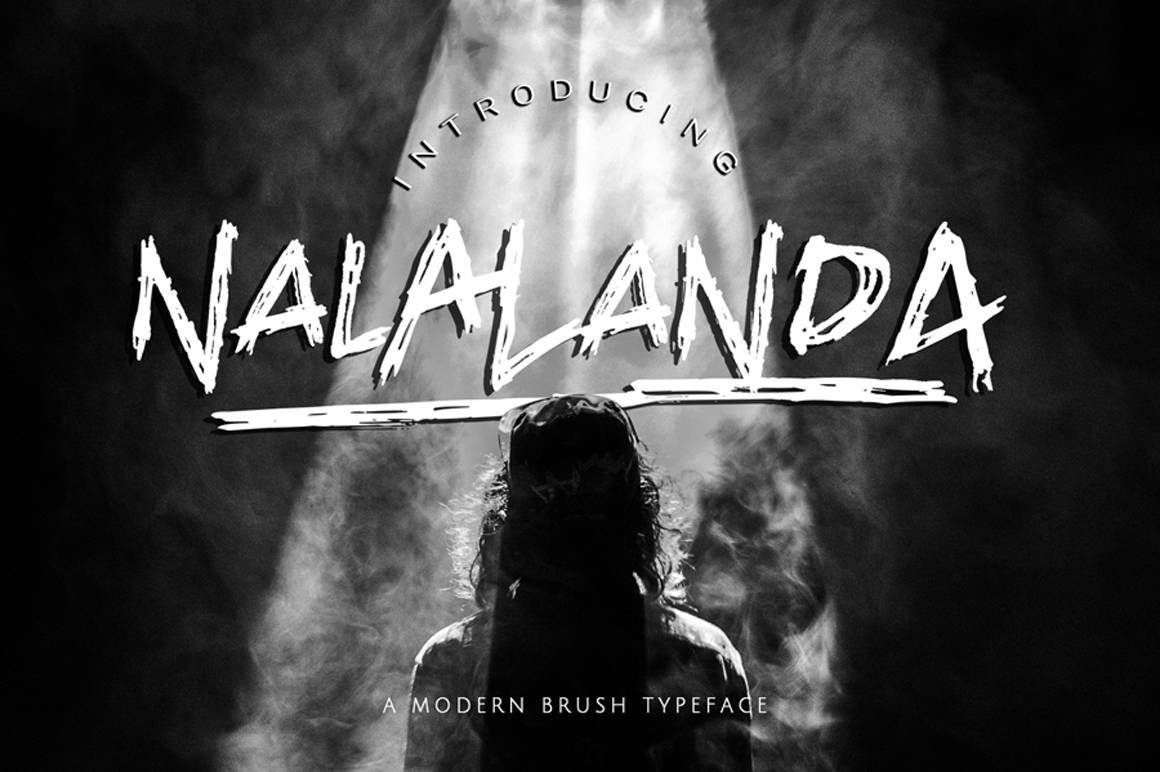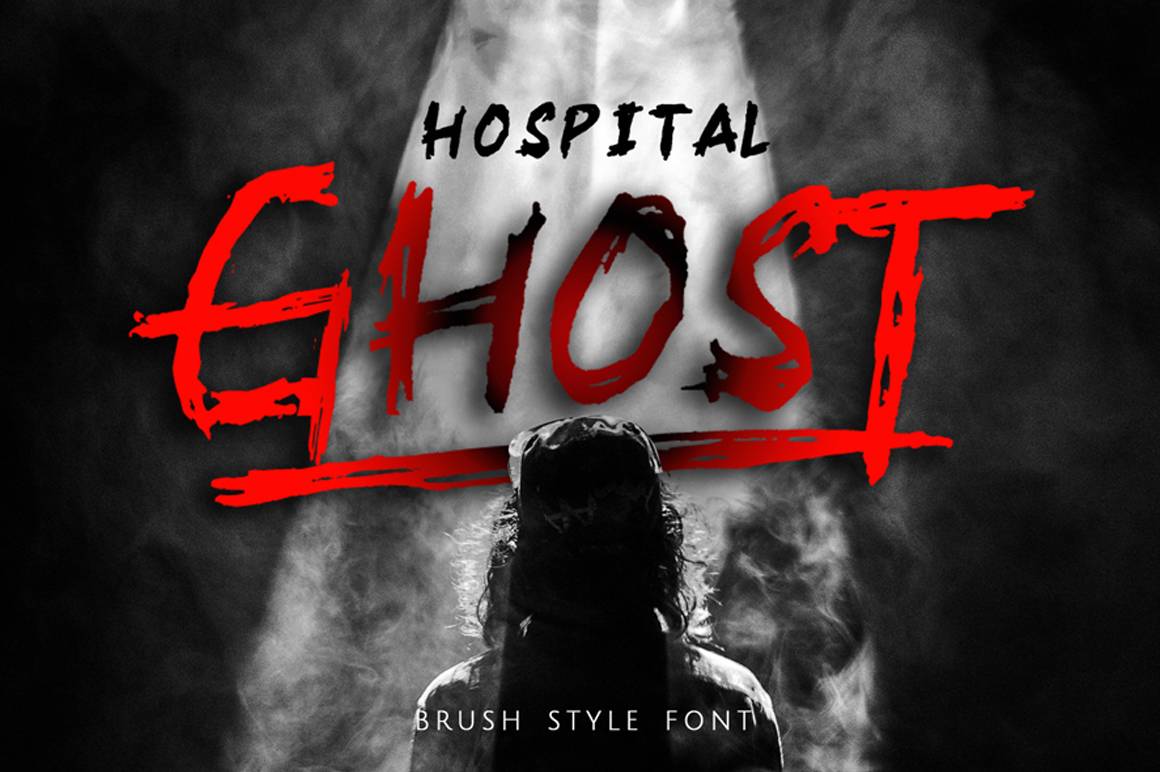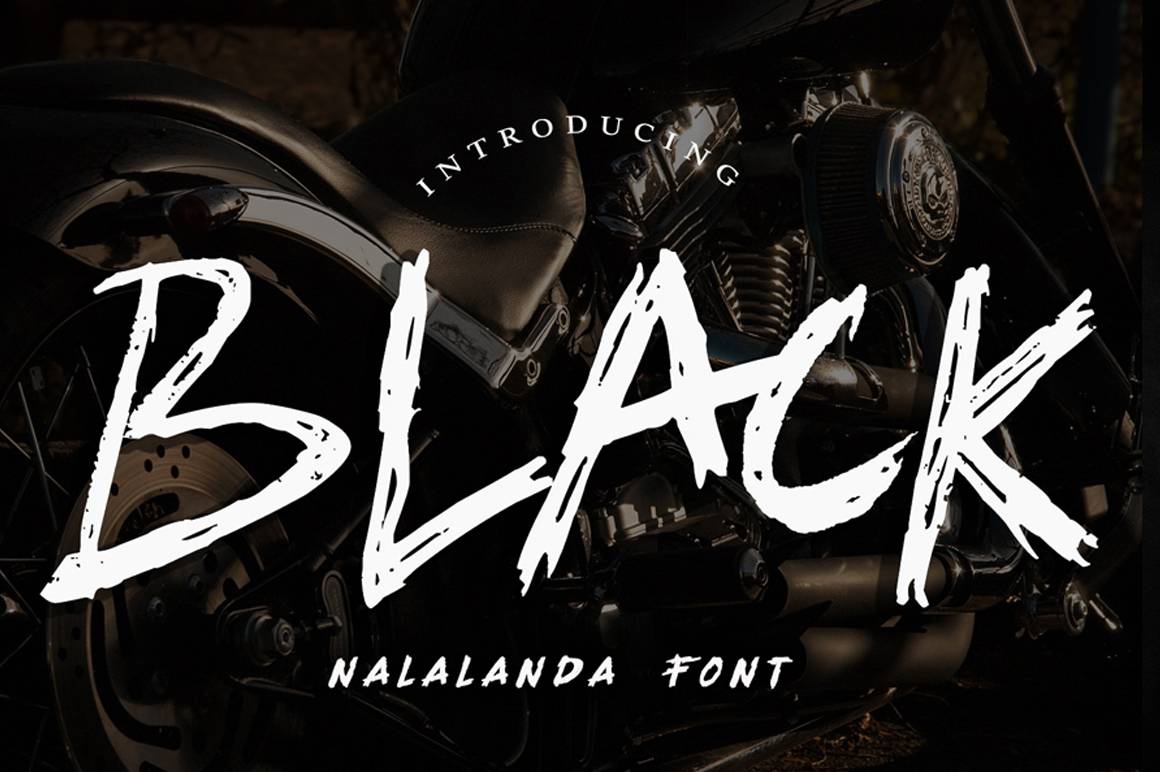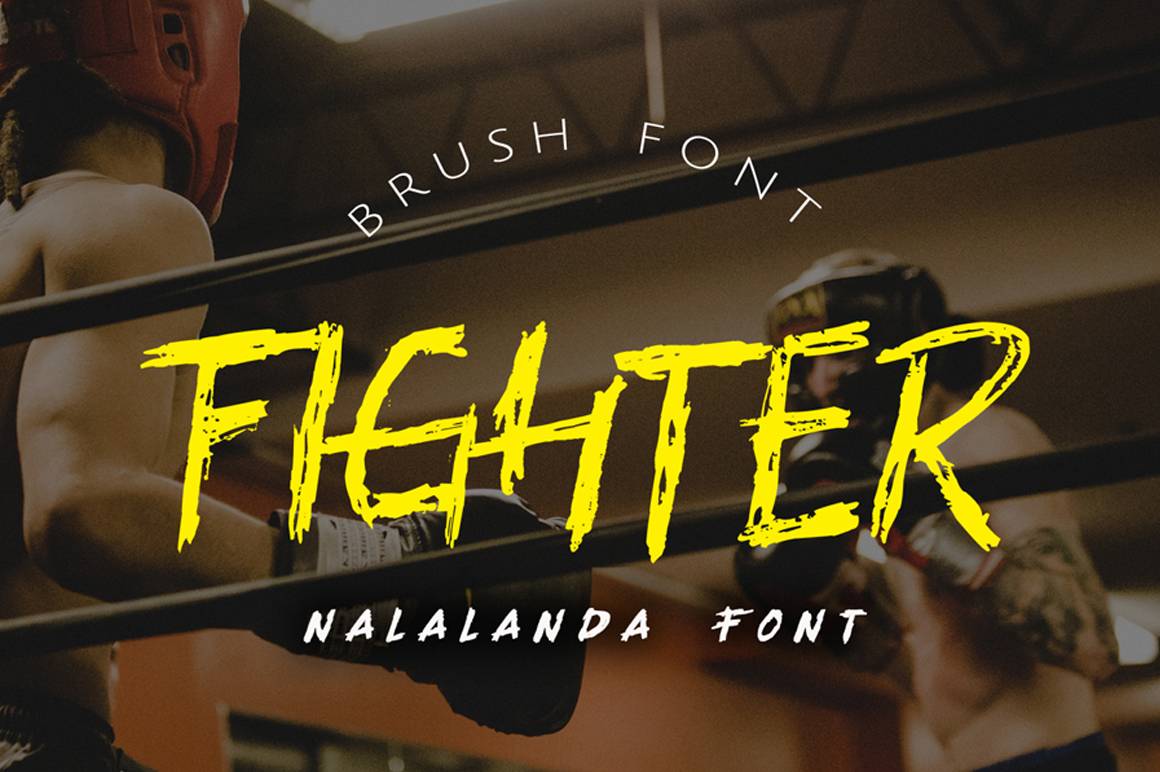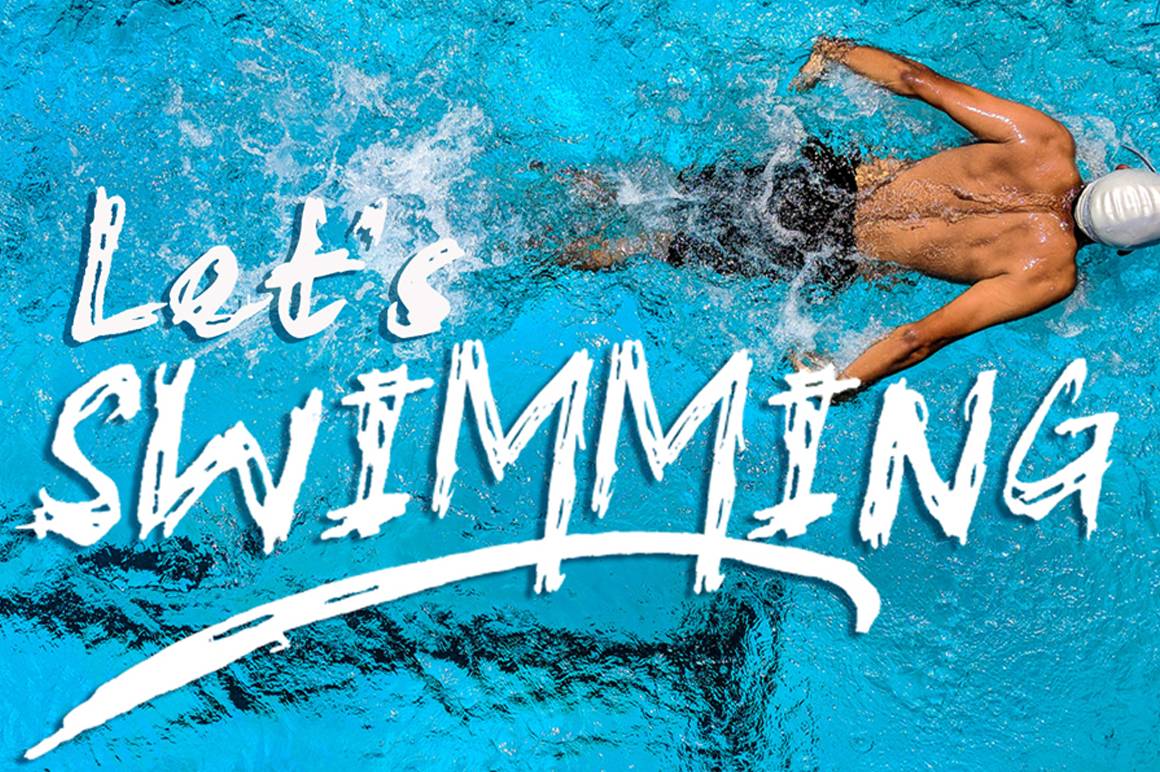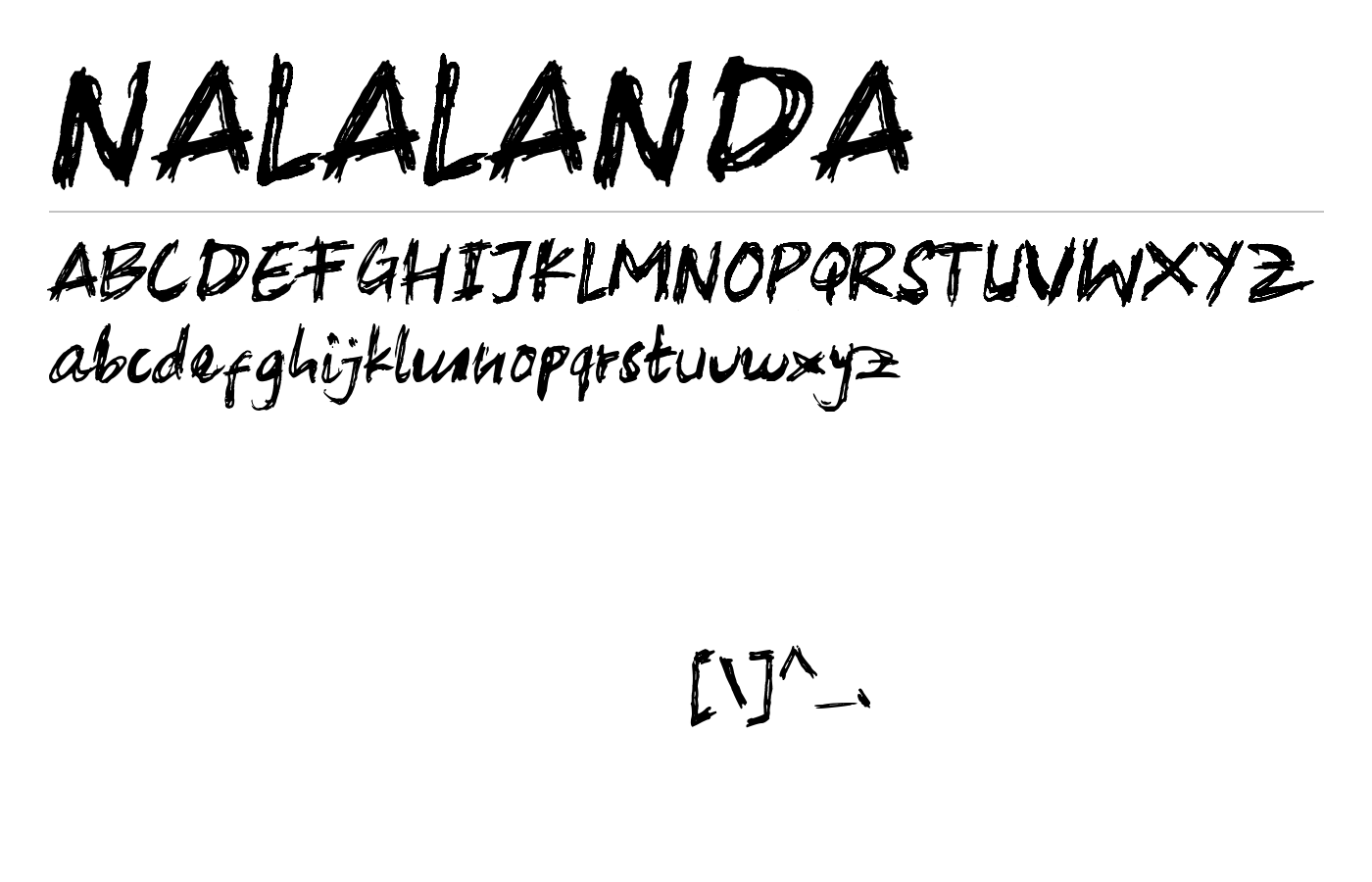
Nalalanda is a bold, expressive handwritten font with a rough, brushstroke texture that gives it an energetic and artistic feel. Its uneven, jagged edges combined with dynamic letterforms make it ideal for creative projects, casual branding, and edgy headlines that demand attention. This font works best when used to add personality and a sense of spontaneity to posters, logos, and social media graphics.
Nalalanda Font
About Nalalanda Font